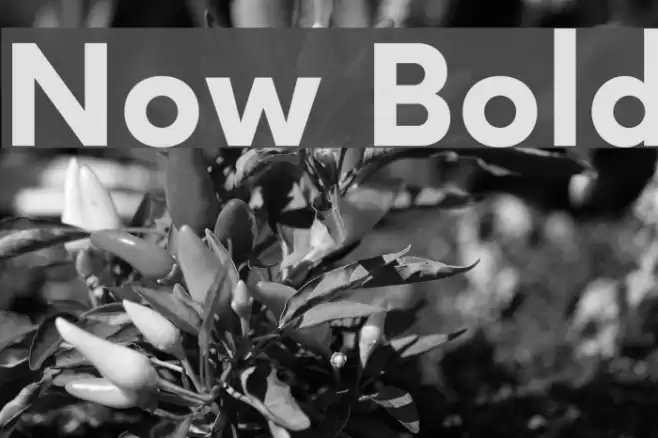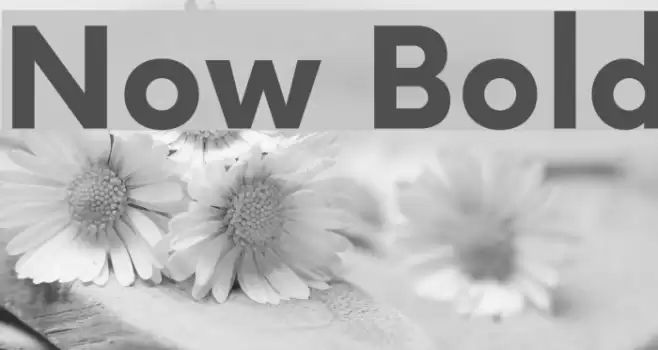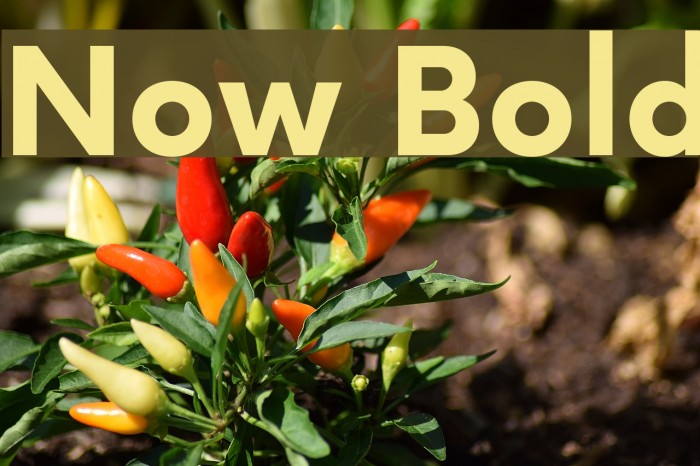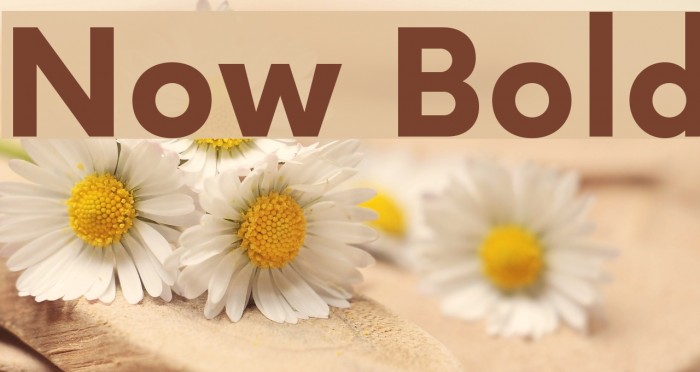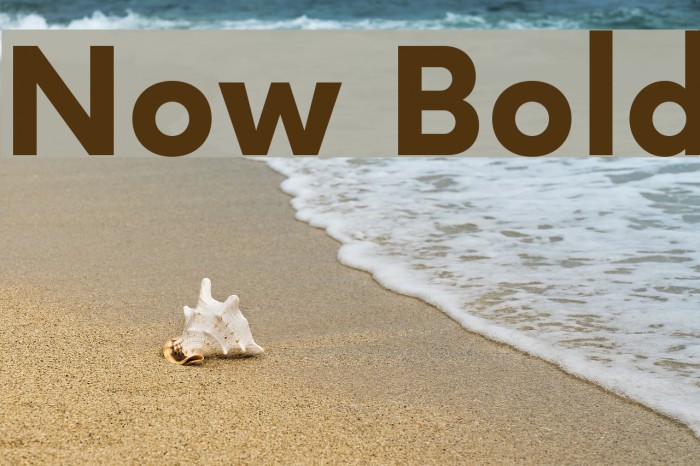
Now Bold Font
Now Bold Description
This font exhibits a bold and modern sans-serif style, characterized by clean lines and a geometric structure. The uppercase and lowercase letters maintain a consistent weight, providing a strong visual impact. The numerals are clear and legible, matching the overall boldness of the alphabet. Special characters are well-defined, ensuring versatility in various design contexts. The uniformity in stroke width across all characters contributes to a cohesive appearance, making it suitable for contemporary design projects that require a strong and assertive typeface.
A bold, modern sans-serif font with geometric structure and consistent weight from Uncategorized fonts.